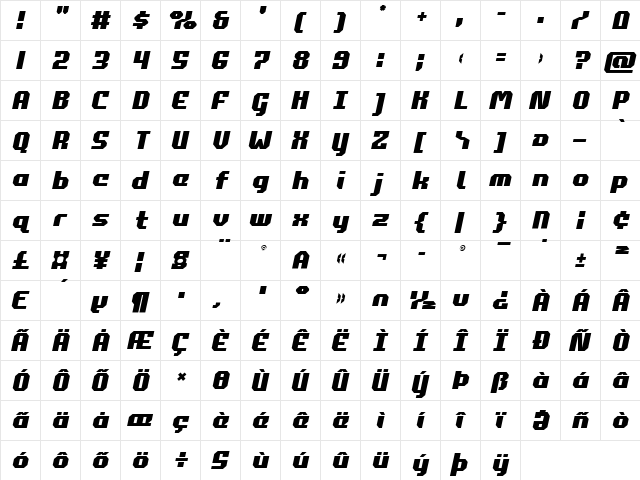
Commonwealth Semi-Italic Semi-Italic
Design Context for Commonwealth Semi-Italic Typeface
Commonwealth Semi-Italic offers clean, dependable letterforms without strong stylistic allegiance, making it a practical choice for designers who need flexibility. The slanted form adds forward momentum and visual energy.